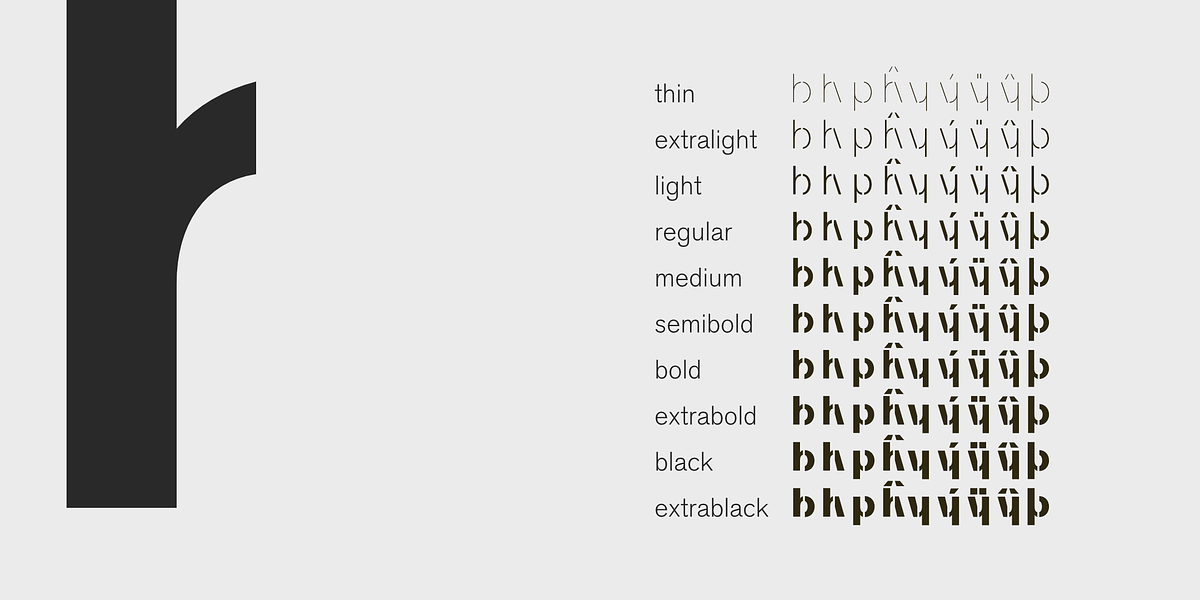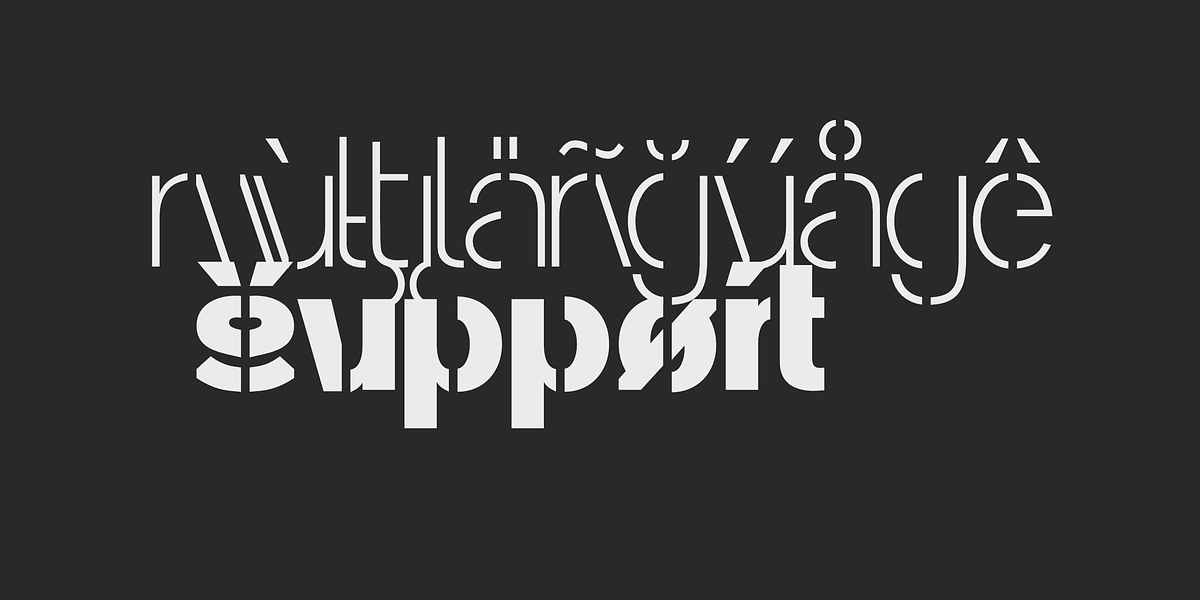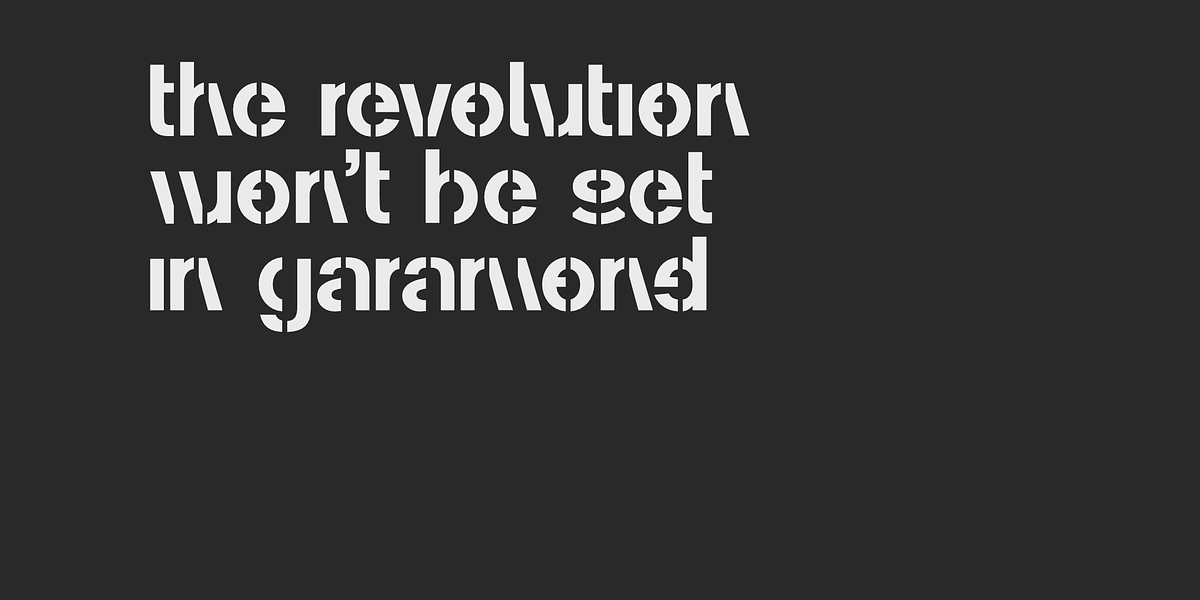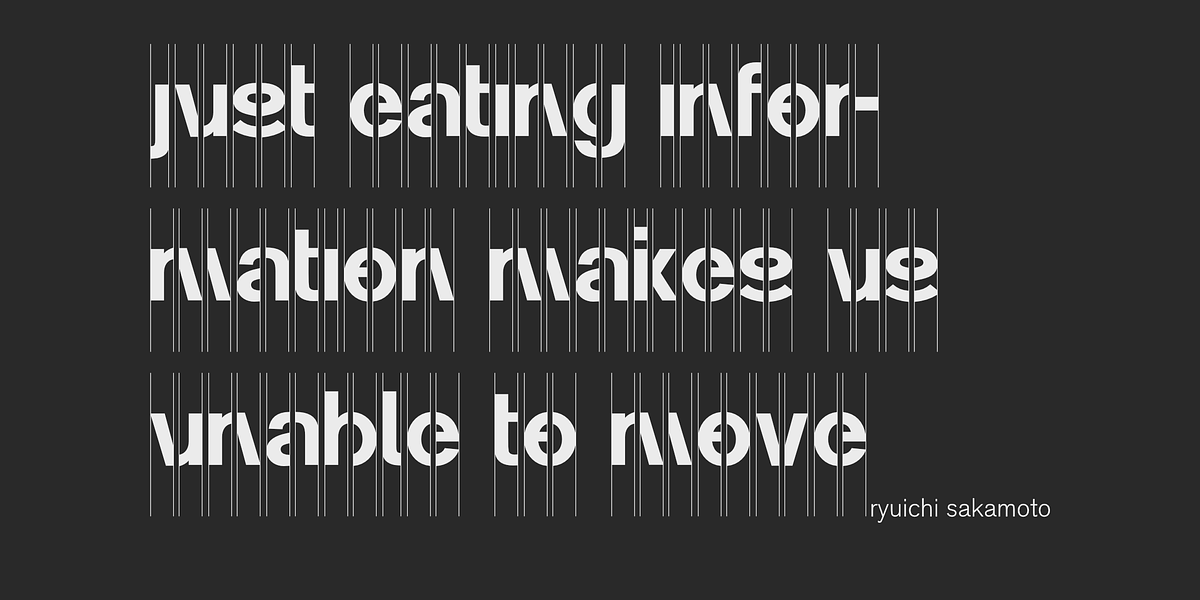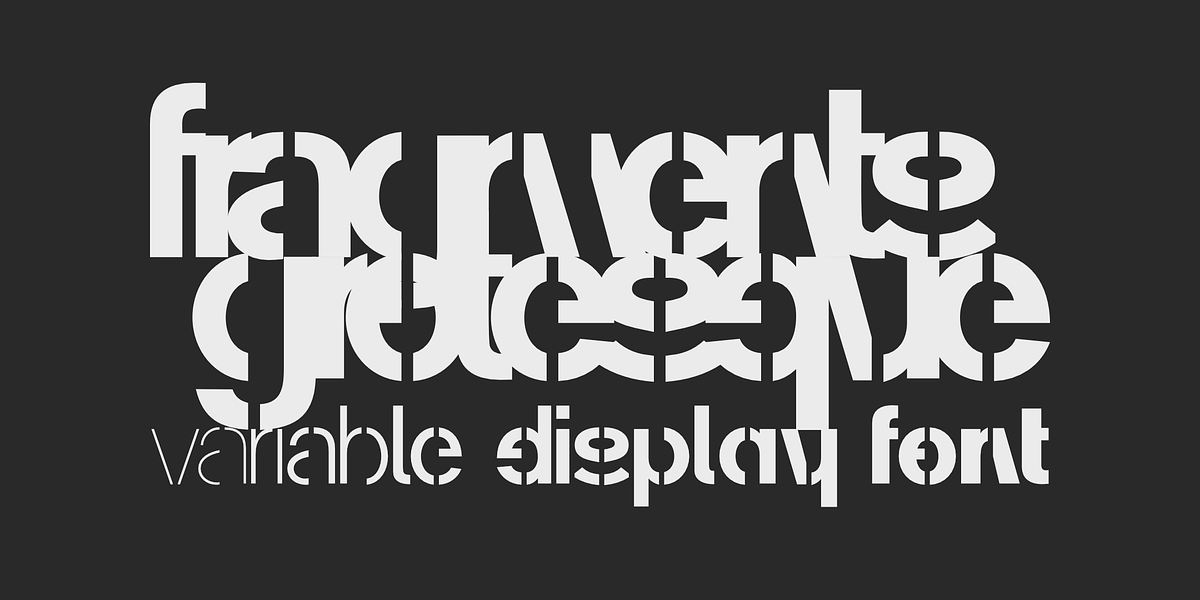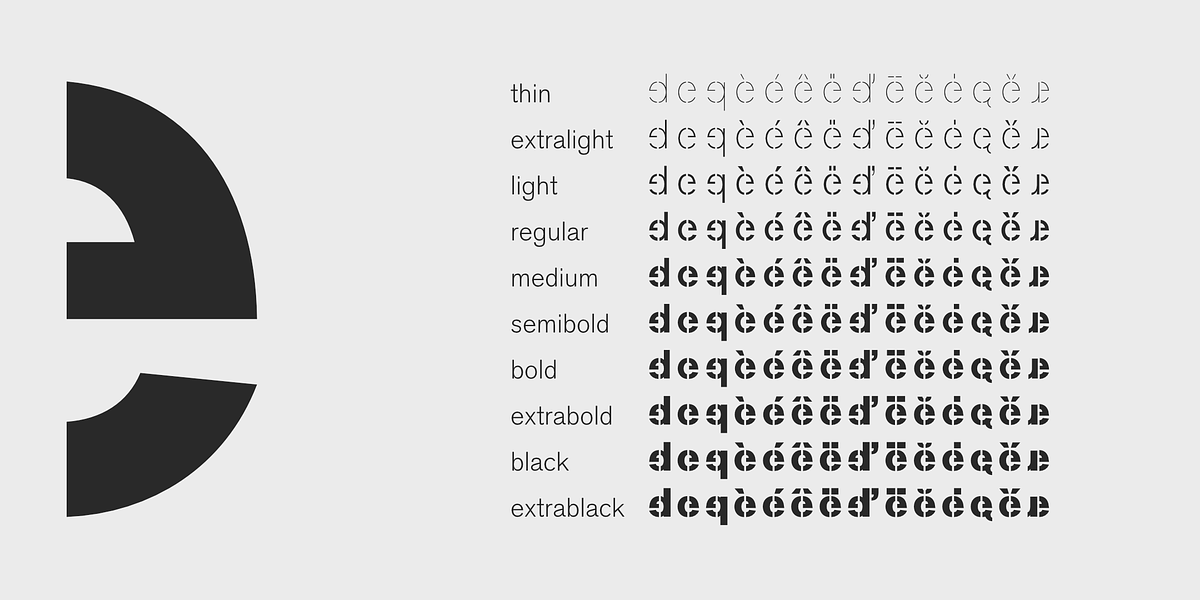
Fragments Grotesque
Fragments Grotesque is an experimental display typeface by designer Rudolf Horaczek. The font is based on fragments of the Latin alphabet - arcs, lines, empty spaces - which have been reassembled. The aim was to find out how much of a letter must remain visible so that it can still be recognized. The design began as an analog experiment with cut-up paper letters. It was later implemented digitally in Fontlab and systematically developed further. Fragments Grotesque moves between typographic legibility and graphic abstraction. Nevertheless, the font remains consistent and typographically clearly structured. The result is a typeface that is visually raw, surprising and expressive.
Fragments Grotesque is not intended for body text, but for strong, visual statements. It is ideal for editorial design, poster work, and visual identities that seek to provoke and disrupt.